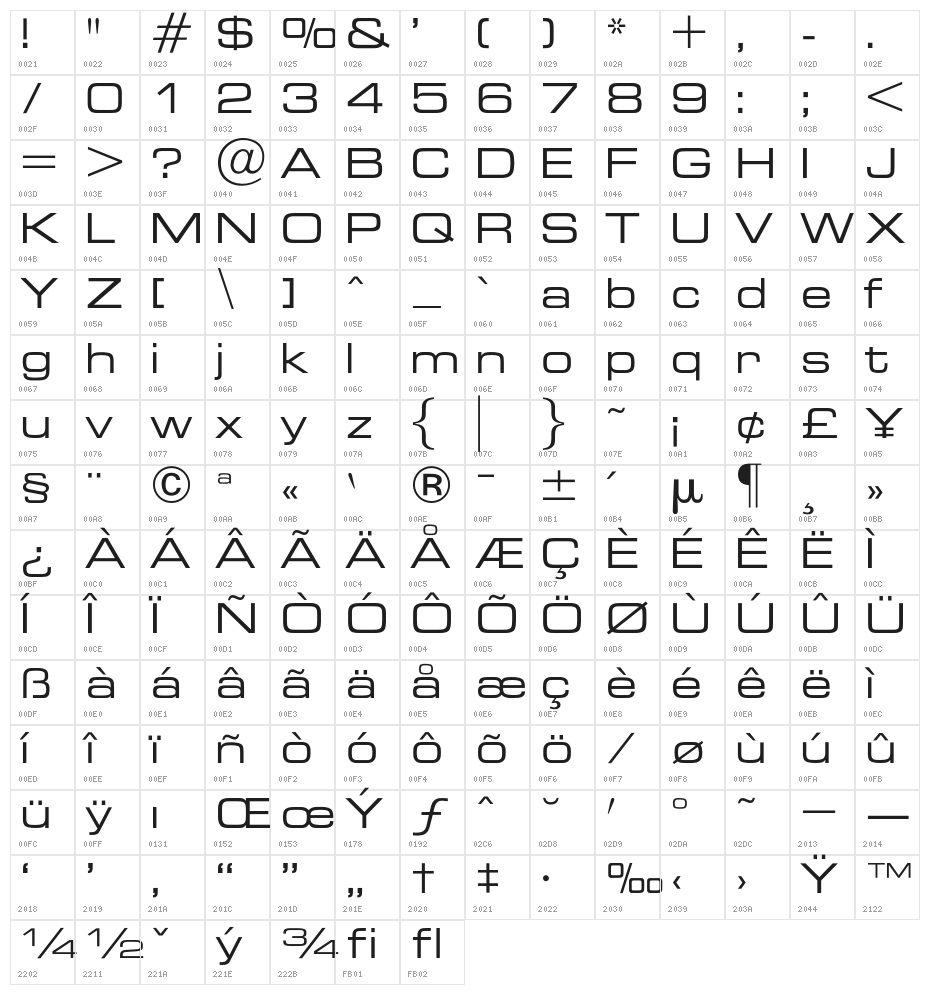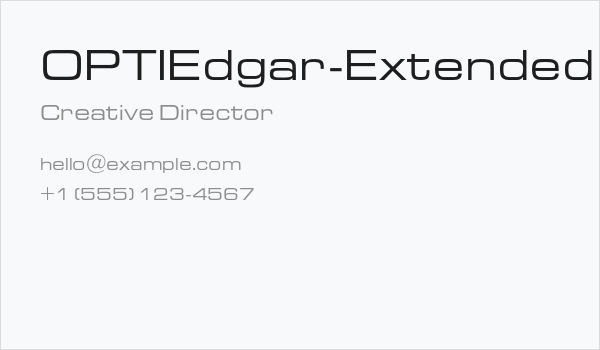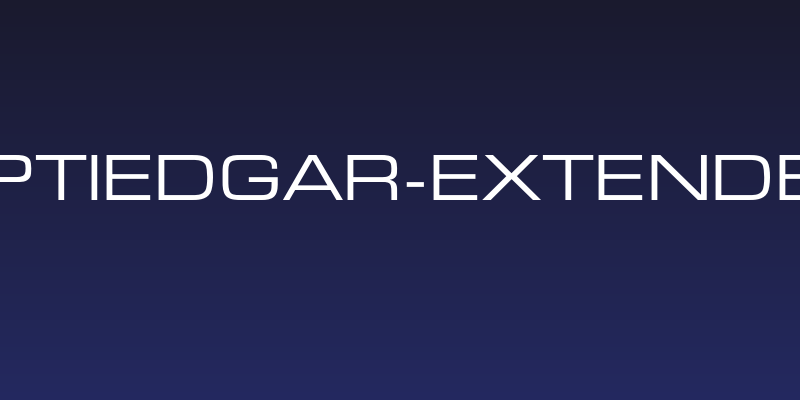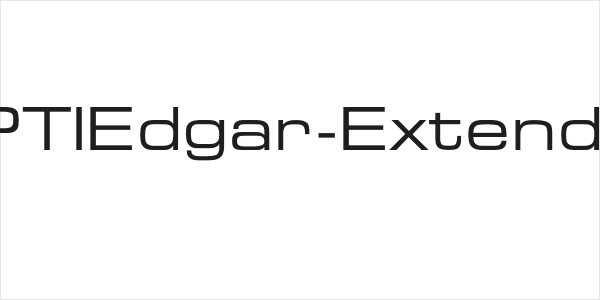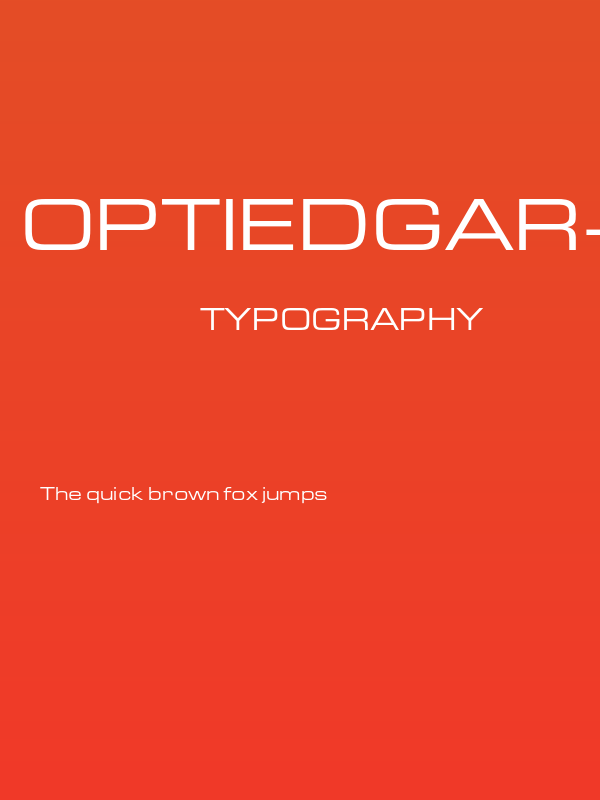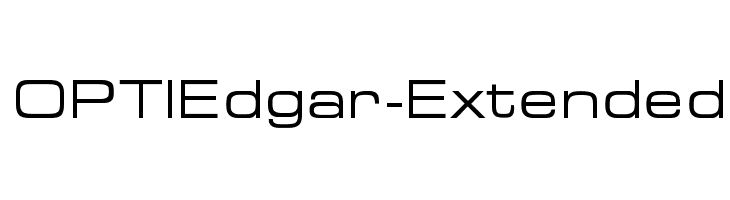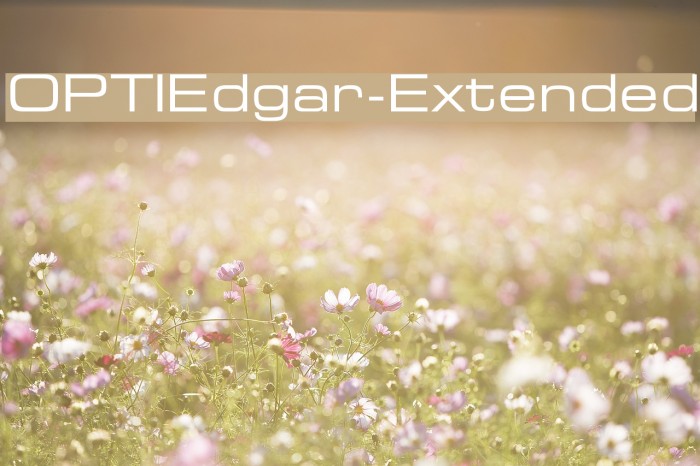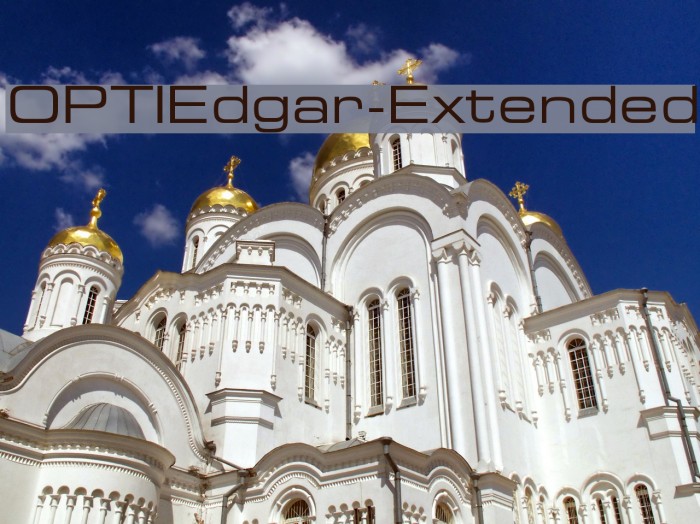
OPTIEdgar-Extended Font
OPTIEdgar-Extended Description
This font features a sleek and modern design with clean lines and a geometric structure. The characters are evenly spaced, contributing to a balanced and harmonious appearance. The uppercase letters are bold and assertive, while the lowercase letters maintain a consistent flow with rounded edges that soften the overall look. The numerals are clear and legible, making them suitable for various applications. Special characters are designed with precision, ensuring they complement the alphabetic characters seamlessly. This font's extended width gives it a distinctive presence, making it ideal for headlines and display purposes.
| Proposed Projects | Ideal for branding, advertising, and editorial design projects that require a modern and professional look. |